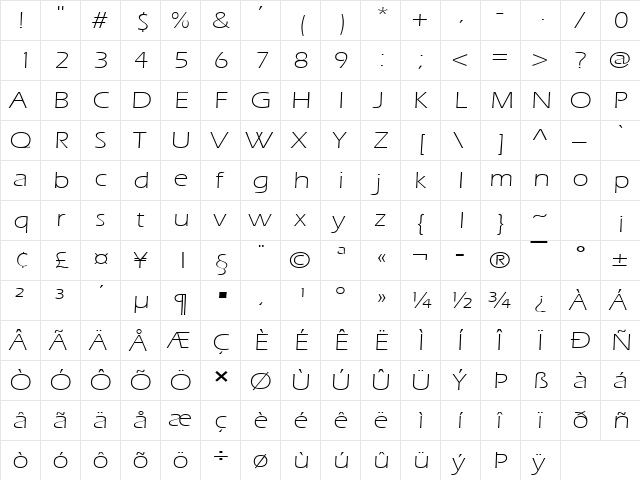
Eric Lite Extended Normal
Design Context for Eric Lite Extended Typeface
Eric Lite Extended takes a measured approach to typography — its balanced proportions and neutral character make it a reliable workhorse for both digital and print work.